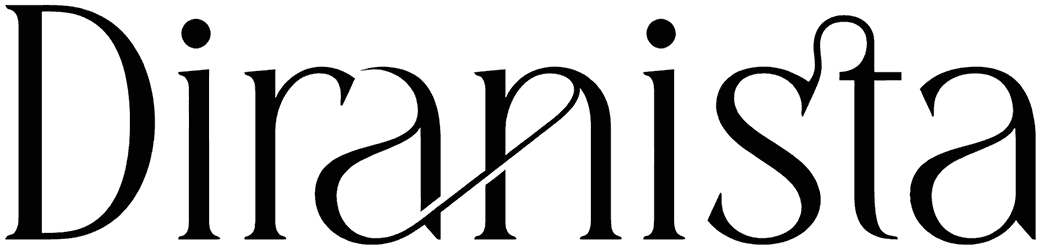
Diranista Font
Diranista is a ligature serif font, and as a standard type, it conveys a traditional and formal touch that you can use in your professional project to make it more reliable. It doesn’t include any punctuation marks, but instead, it has good readability, which makes it perfect for long texts.
You can use this versatile font for newspaper headlines and bodies, branding, special events, wedding invitation cards, and fashion magazines.